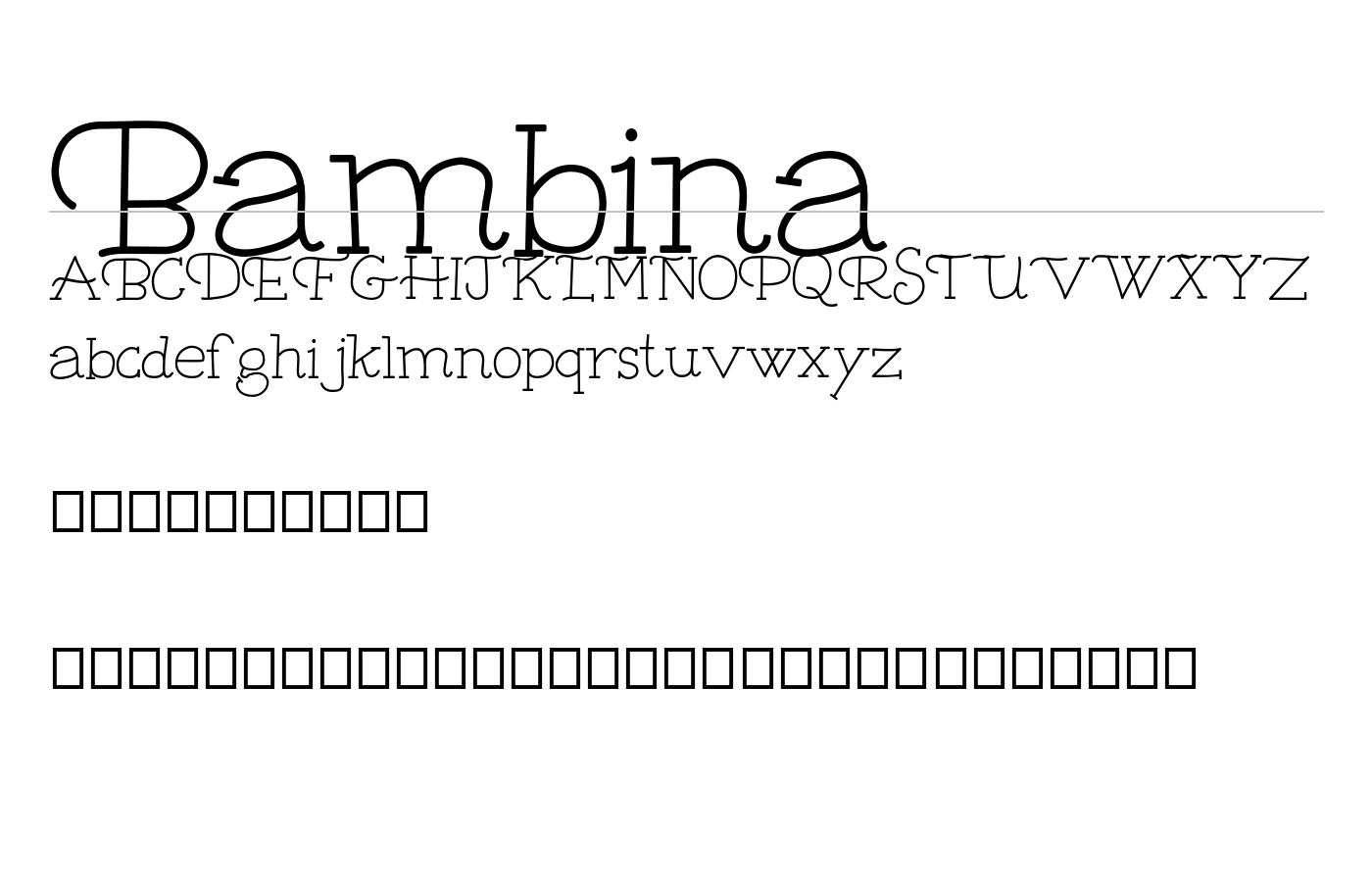
Bambina is a delicate serif font with a whimsical and playful character, featuring thin strokes and subtle contrast that give it a light, airy feel. Its elegant, slightly irregular letterforms with small serifs create a friendly and charming appearance, making it ideal for creative projects, children's books, or invitations where a touch of personality and softness is desired. This font works best in headline or decorative contexts, bringing a vintage yet approachable style to designs.
Bambina Font